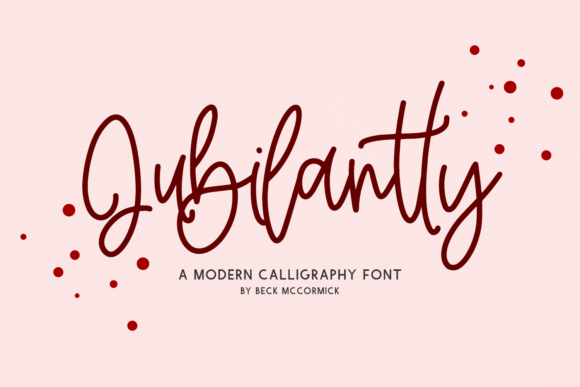
Jubilantly Font
Journey into the world typography with Jubilantly, a modern handwritten calligraphy script font crafted by BeckMcCormick. This exquisite digital creation brings a touch of elegance and charm to your designs, adding a personal touch that resonates with your audience.
Jubilantly's delicate strokes and flowing curves evoke a sense of handwritten authenticity, making it perfect for crafting heartfelt wedding invitations, thank-you cards, and other heartfelt correspondence. Its versatility extends to logos, business cards, and branding, where its unique character adds a touch of sophistication and individuality.
More than just a font, Jubilantly is an artistic expression that captivates and enchants. Its PUA encoding grants you effortless access to a treasure trove of glyphs and swashes, empowering you to unleash your creativity and elevate your designs to new heights.
Whether you're a seasoned designer or just starting your creative journey, Jubilantly is the perfect companion for crafting designs that speak to the heart. Its user-friendly nature makes it accessible to all, inviting you to explore the boundless possibilities of handwritten typography.
With Jubilantly, your designs transcend the ordinary and become extraordinary. Its every curve and stroke is a testament to the power of handwritten artistry, adding a touch of magic to your creative endeavors. Dive into the world of Jubilantly and let your imagination run wild.